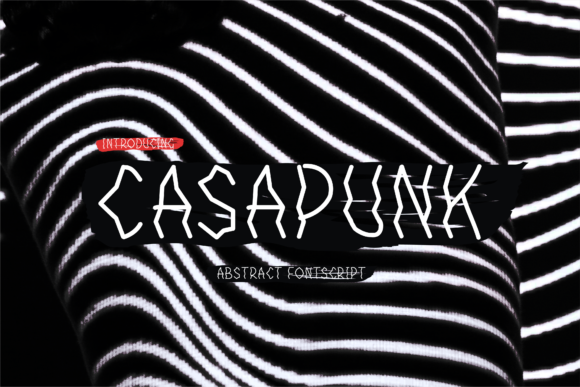
The Ultimate Design Hack: Casapunk Font
I’ll never forget the design struggle I faced while working on a project for a trendy boutique hotel. My client wanted a font that exuded a mix of industrial chic and futuristic vibes, but I was stuck in a creative rut. That’s when I stumbled upon the Casapunk font, and it completely transformed my design game. In this article, I’ll share my love for this amazing font, its features, and how to make the most of it in your designs.
- ✨ Unique and eye-catching design: Casapunk’s abstract and geometric style makes it a standout in any font library.
- ✅ Versatility: This font can be used for a wide range of projects, from branding and advertising to packaging and digital media.
- 💡 Inspires creativity: Casapunk’s distinctive style can spark new ideas and help you think outside the box.
While Casapunk is an incredible font, there are a few things to keep in mind:
- 🤔 Legibility at small sizes: Due to its abstract nature, Casapunk may not be the best choice for body text or small font sizes.
- ⚠️ Limited use in formal contexts: This font’s bold and edgy style may not be suitable for formal or traditional designs, such as corporate reports or wedding invitations.
- Experiment with OpenType features, such as Stylistic Alternates, to add more visual interest to your text.
Although the origins of Casapunk are shrouded in mystery, it’s clear that the designer was inspired by the intersection of industrial and futuristic aesthetics. The font’s abstract and geometric style is reminiscent of a dystopian metropolis, where technology and innovation reign supreme.
Q: What type of projects is Casapunk best suited for?
A: Casapunk is an excellent choice for projects that require a bold and edgy font, such as branding, advertising, and packaging.
Q: Can I use Casapunk for body text?
A: While possible, Casapunk’s abstract nature may make it less suitable for body text. It’s best used for headlines, titles, or short paragraphs.
Q: Does Casapunk support OpenType features?
A: Yes, Casapunk supports OpenType features, including glyphs, ligatures, and stylistic alternates.
Q: Is Casapunk a versatile font?
A: Absolutely! Casapunk’s unique style makes it a versatile font that can be used across various industries and design contexts.